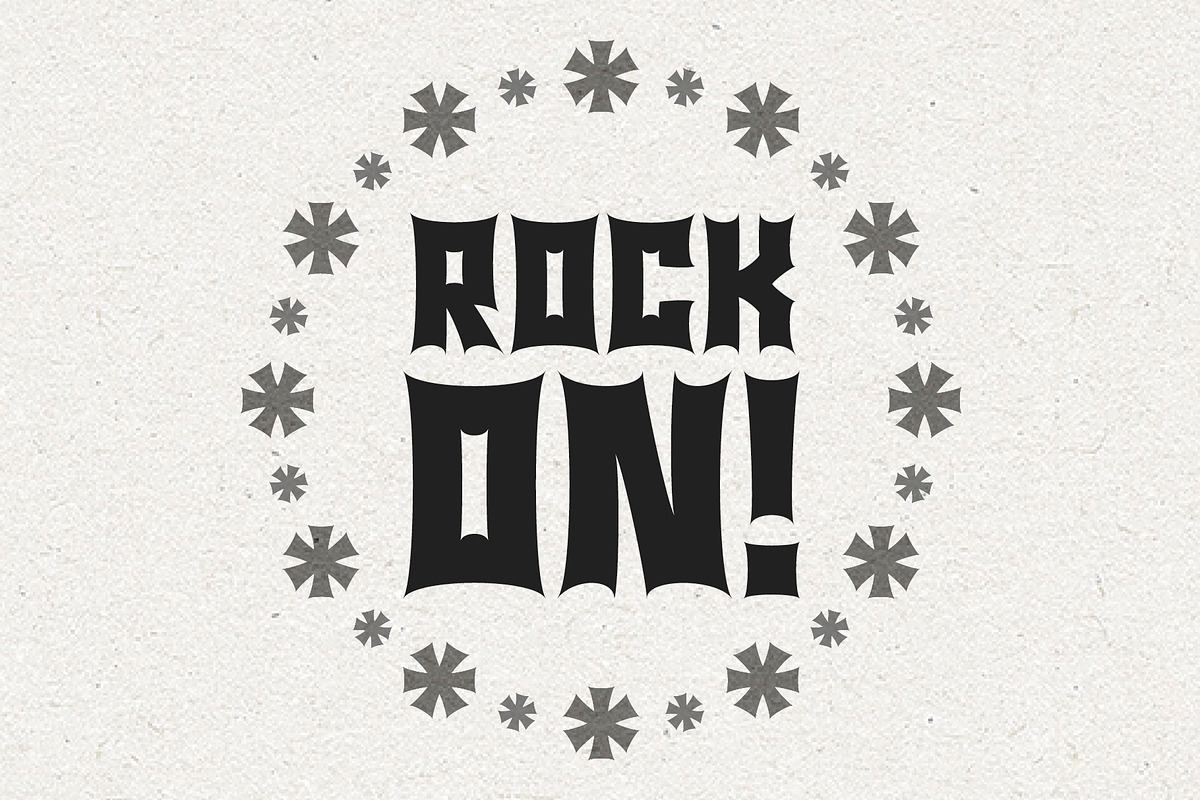
Monsta Rocka - a monster rocker font Free Download
Monsta Rocka - A Monster Rocker Font Free Download
Monsta Rocka - A Monster Rocker Font Free Download is a bold, edgy, and rebellious typeface designed to capture the spirit of rock and roll with a monstrous twist. Featuring jagged, distorted letterforms and a gritty, rough design, this font is perfect for heavy metal posters, album covers, band logos, event flyers, and anything that requires a hard-hitting, powerful aesthetic.
The font’s unique and aggressive design makes it ideal for projects that want to convey strength, chaos, and energy. Whether you're creating promotional materials for a concert, a music brand, or just a rock-inspired project, Monsta Rocka will make your typography stand out with boldness and attitude.